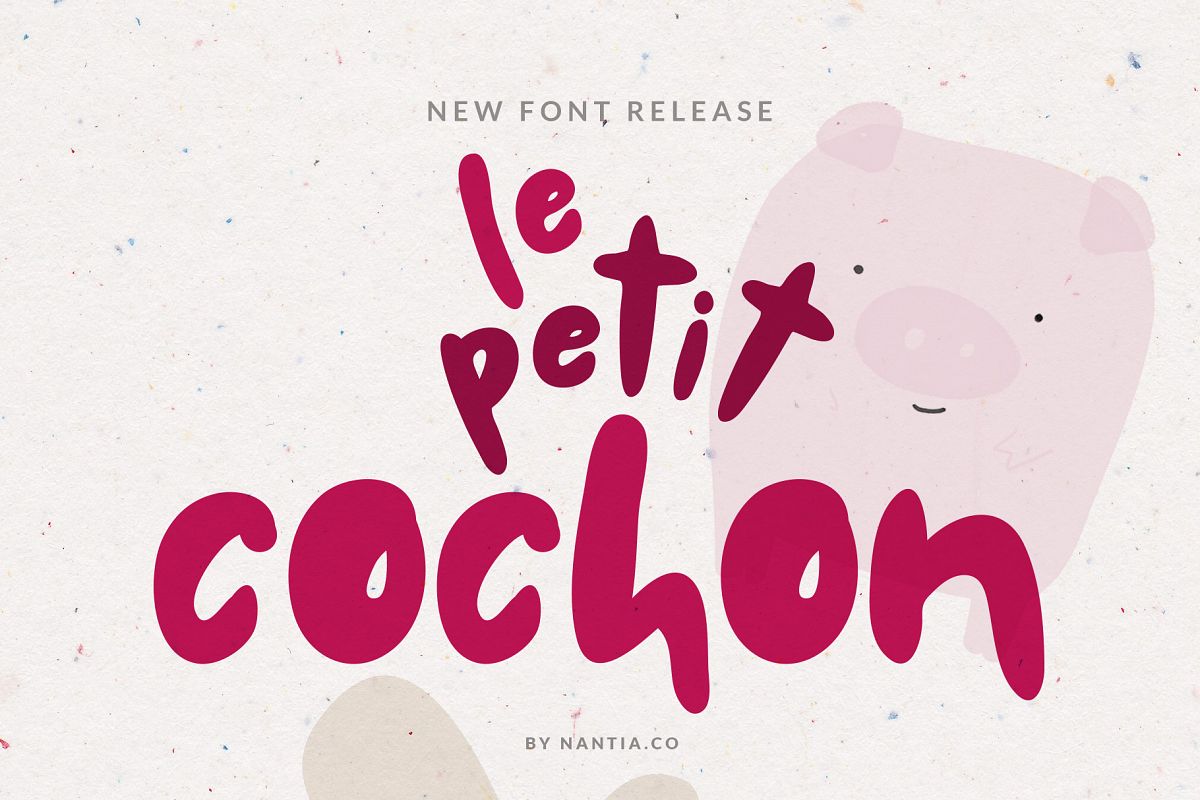
Chubby Font Le Petit Cochon
Le Petit Cochon is an adorable chubby typeface. It
is a cute font that has a great variety of applications with
multilingual support. Chubby Font Le Petit Cochon is a lettering font
with Greek (of course), Latin characters and diacritics.
The font is hand crafted, but still is maintaining it’s legibility and
balance so it can be used in packaging or logotypes and branding.
Especially if you are looking for a font for Instagram cute quote posts
or any other social media content, this typeface is the perfect match
for you!